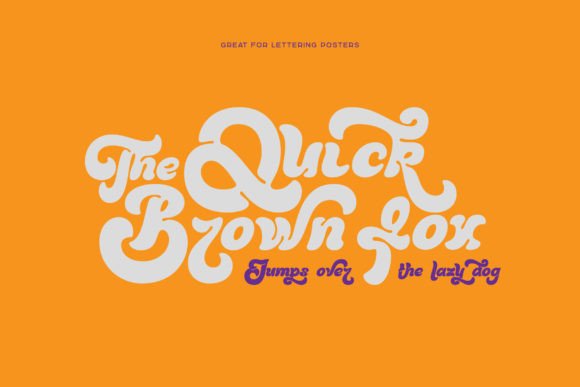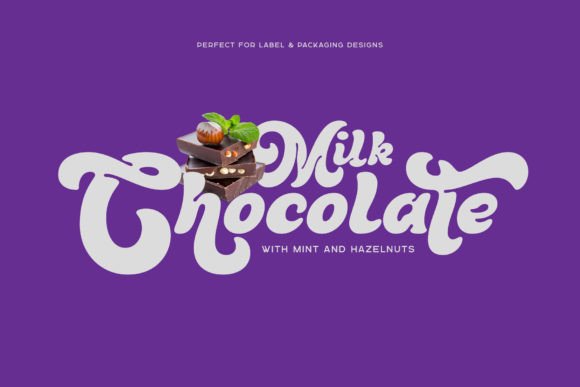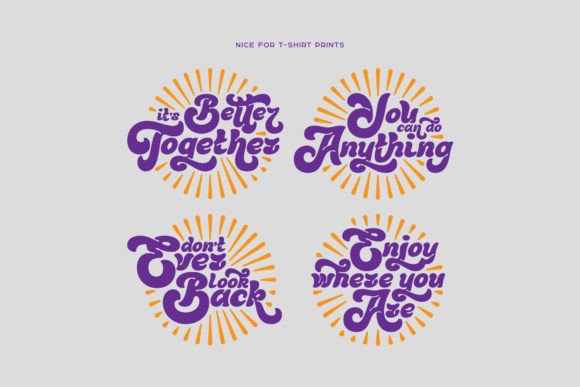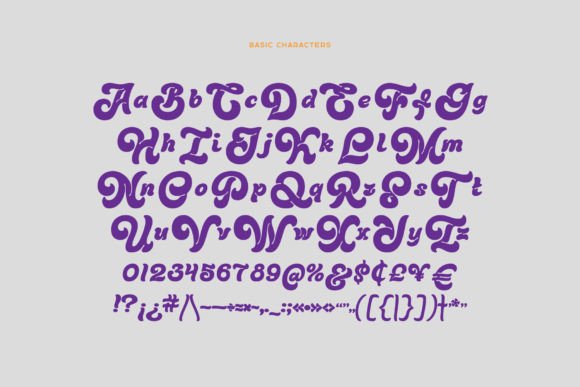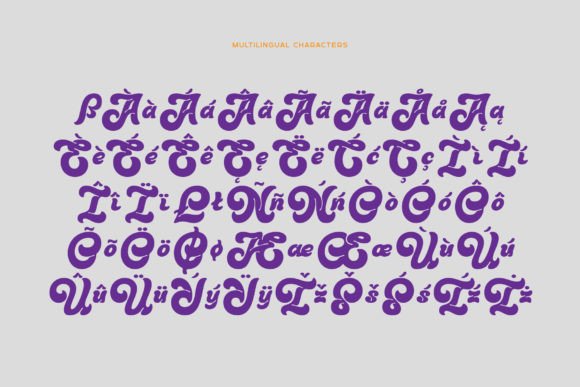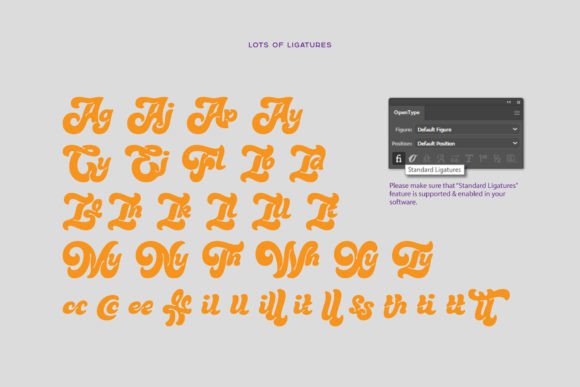
Introduction to Milley Font
Do you ever find yourself rummaging through your design stash, searching for the perfect font to bring your creative project to life? It’s that moment when you stumble upon a hidden gem, and your imagination starts to run wild. For designers, finding the right font can be a game-changer – it’s what sets a design apart and makes it truly stand out.
That’s where Milley Font comes in – a beautiful, brush-style font that’s perfect for packaging and label design. With its soft, friendly shape and abundance of ligatures and extra glyphs, Milley Font is a valuable design resource that’s sure to elevate your work to the next level.
Key Features of Milley Font
- Perfect for use in logos, branding, and digital design projects
- Designed to provide a unique and creative touch to any design
Honest Review: Milley Font
As a designer, I’m always on the lookout for high-quality design resources to elevate my creative projects. The Milley Font caught my attention with its unique and elegant style, perfect for a variety of applications.
What works well about the Milley Font is its versatility. It’s suitable for both print and digital use, and its transparent background makes it easy to layer over other design elements. I’ve used it in a few projects, and it’s consistently delivered a professional and sophisticated look. ✨
Some of the features I appreciate about the Milley Font include:
- Its high-quality design that looks great at various font sizes
- Its wide range of applications, from body text to headlines
However, I do find that the Milley Font can be a bit limited in its expressiveness. It’s a elegant, yet straightforward font, and some designers may find it too conservative for their taste. ⚠️
Overall, I’m impressed with the Milley Font and would recommend it to designers looking for a reliable and versatile design resource. Its high-quality design and transparent background make it a great choice for creative projects, and its free download is a bonus.
The Milley Font is commonly used in creative projects, such as graphics, presentations, and documents. Its high-quality design and transparent background make it an ideal choice for designers and writers who want to add a touch of sophistication to their work.
To get the most out of the Milley Font, use it in conjunction with other design elements, such as images and graphics, to create a visually appealing design. Experiment with different font sizes and styles to add depth and creativity to your project.
Alternatives to Milley Font
Alegreya Sans is a high-quality, sans-serif font ideal for creative projects that require a clean and modern look. It features a transparent background, making it perfect for designs with complex layouts. When to use: Alegreya Sans is suitable for any design project that requires a sophisticated and elegant feel.
Comparison to Milley Font: Alegreya Sans has a more modern and minimalist design compared to Milley Font, which has a more vintage feel. Milley Font has a more distinctive and playful personality, while Alegreya Sans is more versatile and neutral.